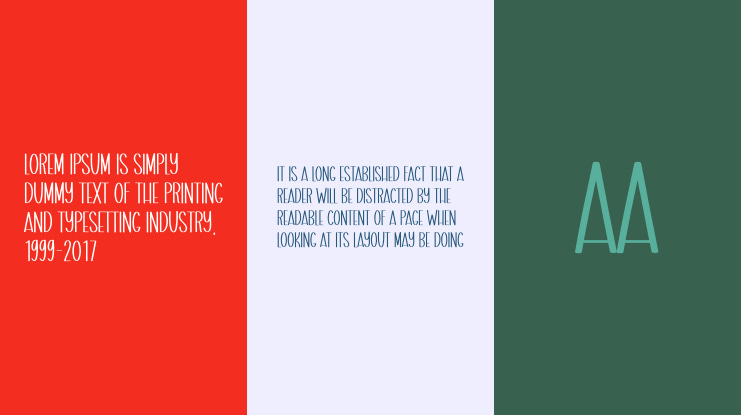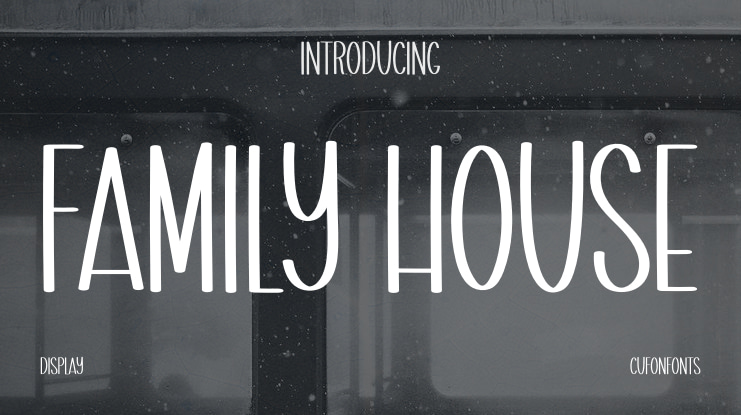
Family House Font
Our collection of stylish fonts is perfect for various purposes such as wall displays, wedding invitations, social media post logos, advertising, product packaging, labels, photography, watermarks, invitations, stationery, and any project that requires beautiful handwriting.